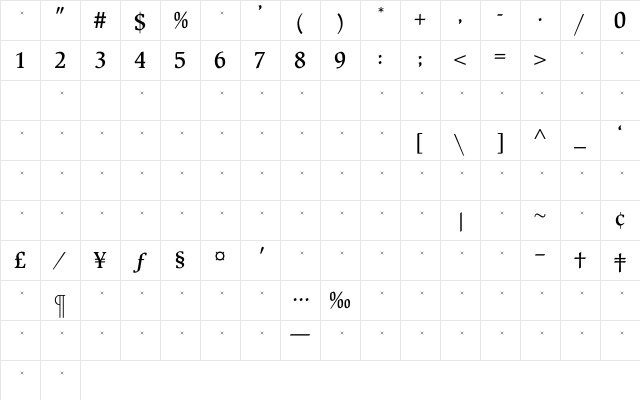
Complete BeckenhamMediumTab Regular glyph index. Displaying only characters natively supported by BeckenhamMediumTab Regular font.
BeckenhamMediumTab is a composed and adaptable typeface that performs quietly and consistently across a wide range of design contexts.
Pro Tip: Use BeckenhamMediumTab in both headline and body roles to test its range before committing to a single application.